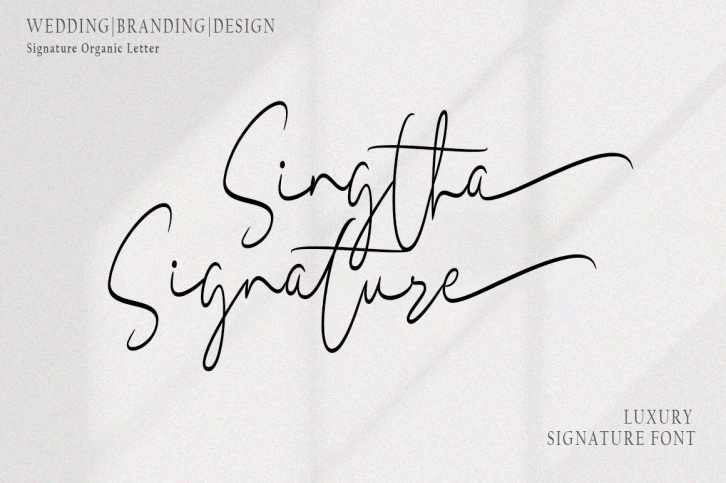
Singtha Signature is a trendy and unique font with an authentic style. It was designed by Erick Studio and it's a great choice for creative people who need such a font. It was released on August 22, 2022 and the file size is 4.74 MB. Singtha Signature will add an organic vibe to any design idea!